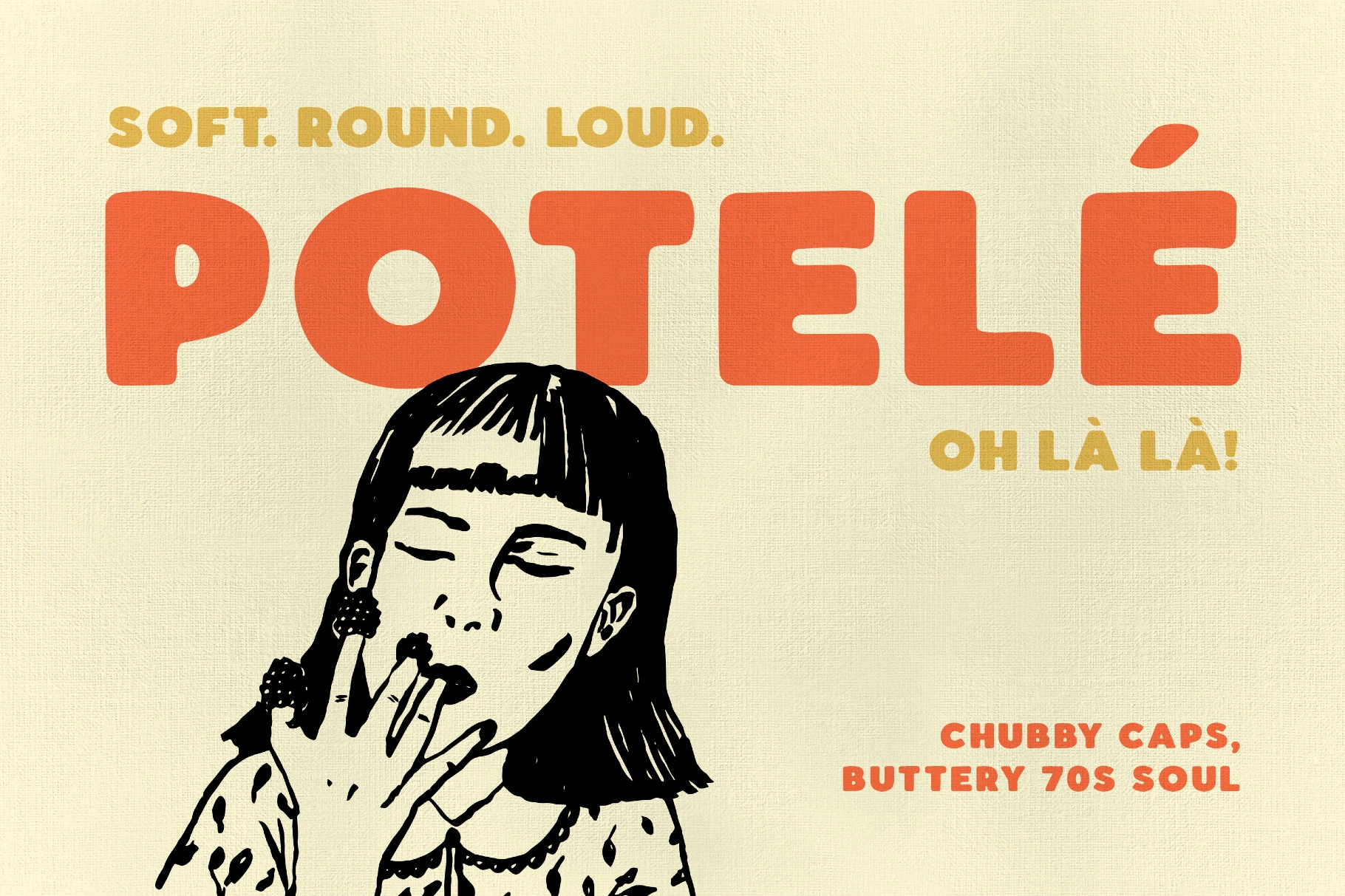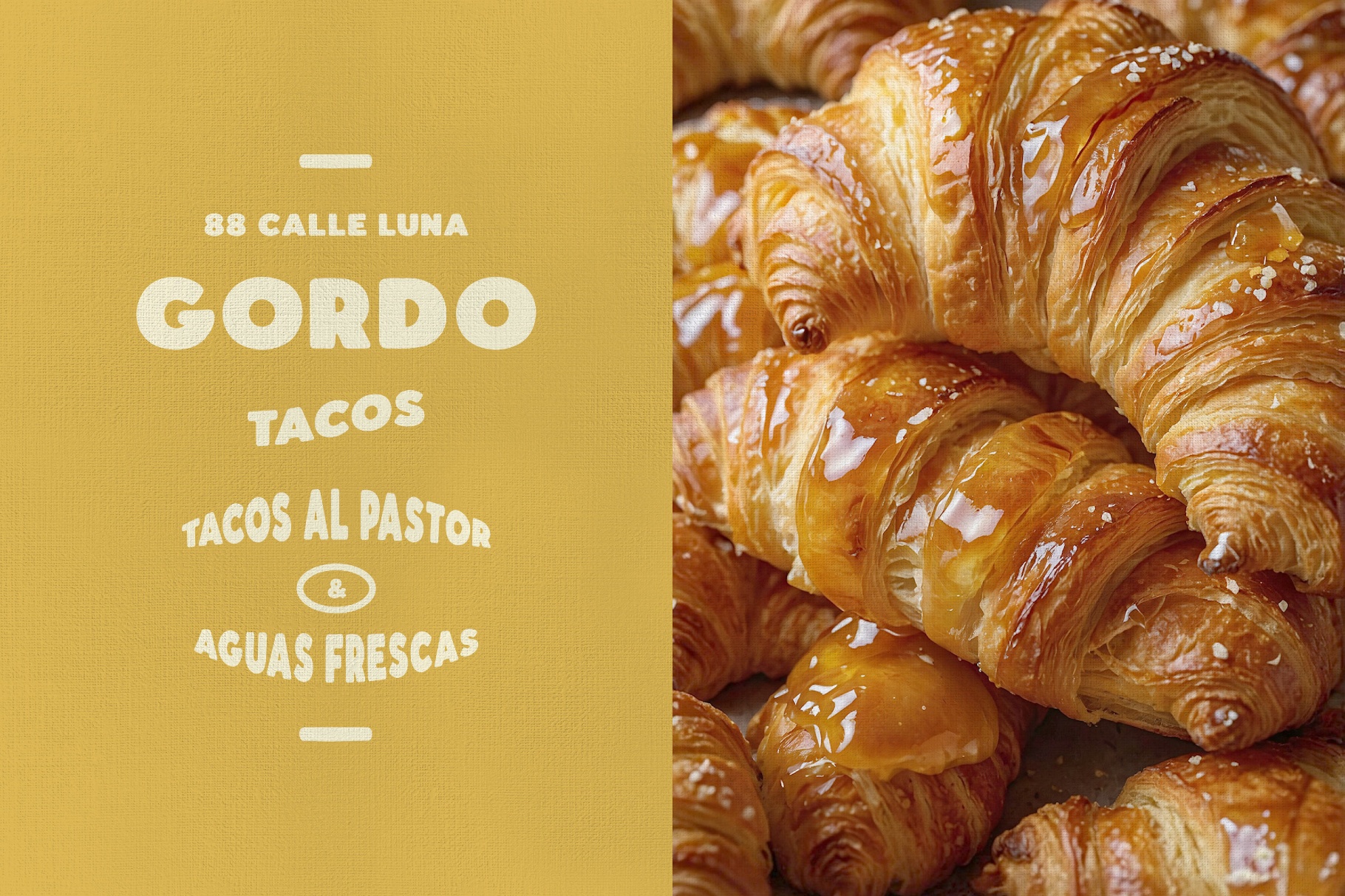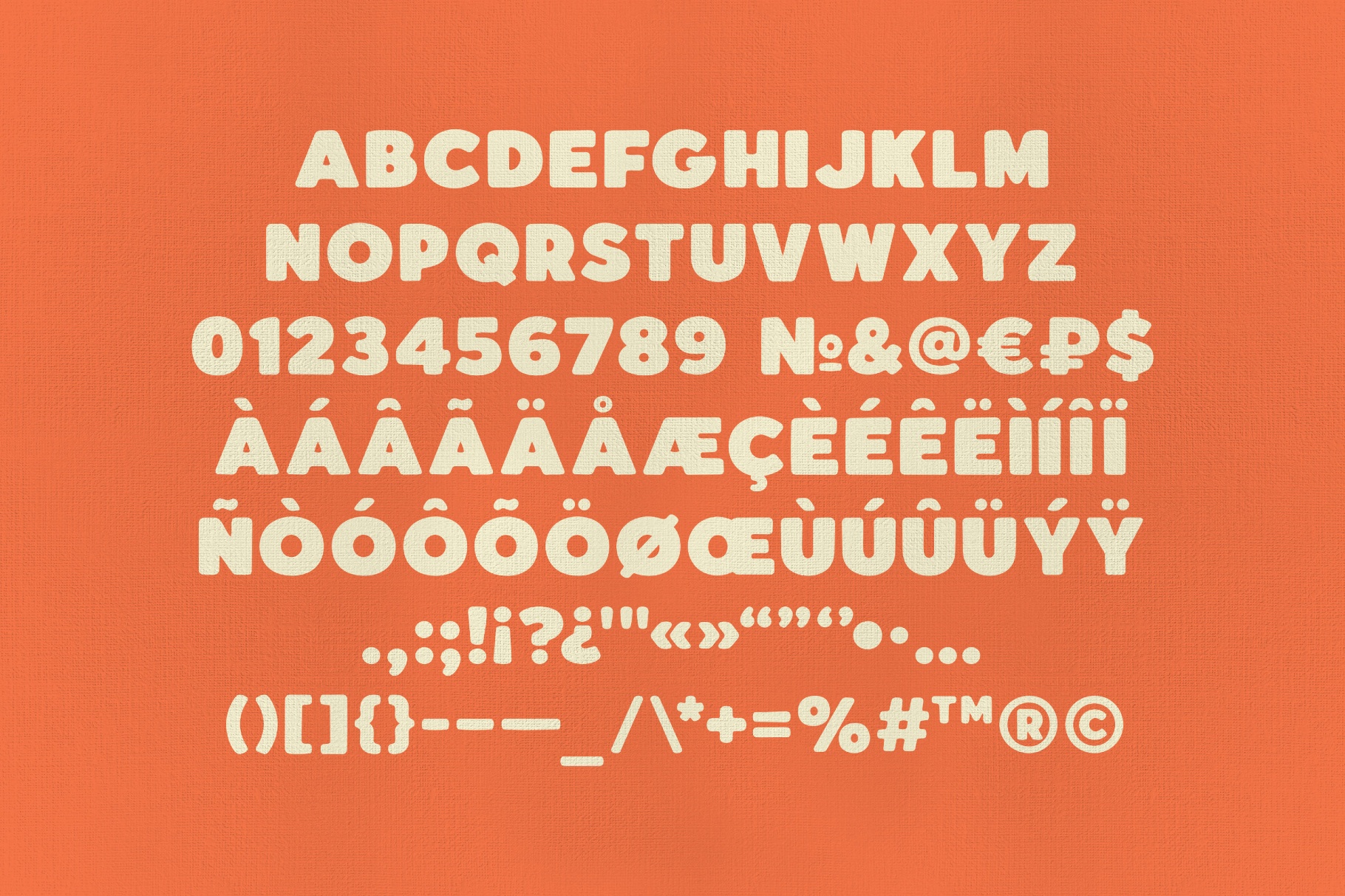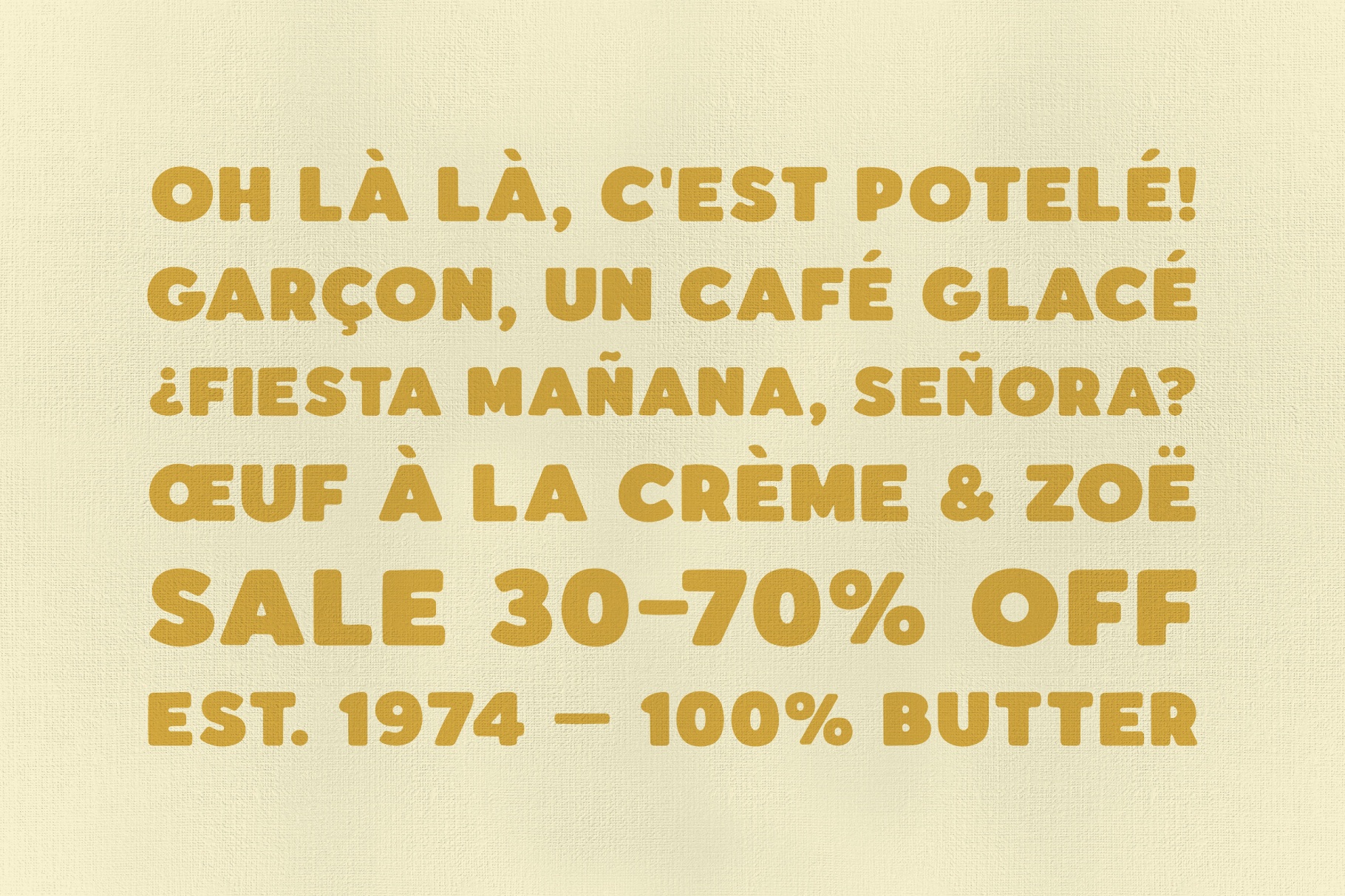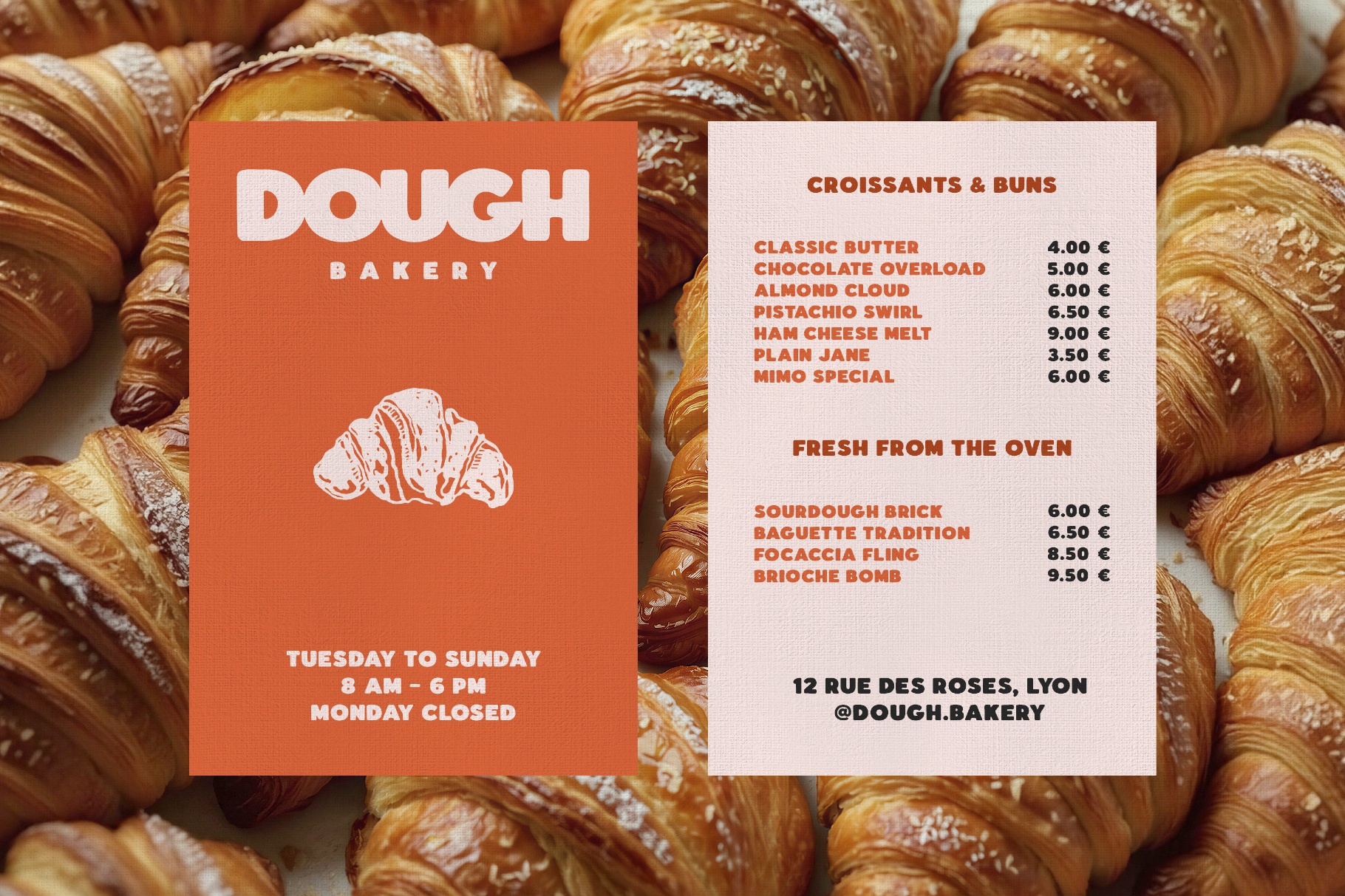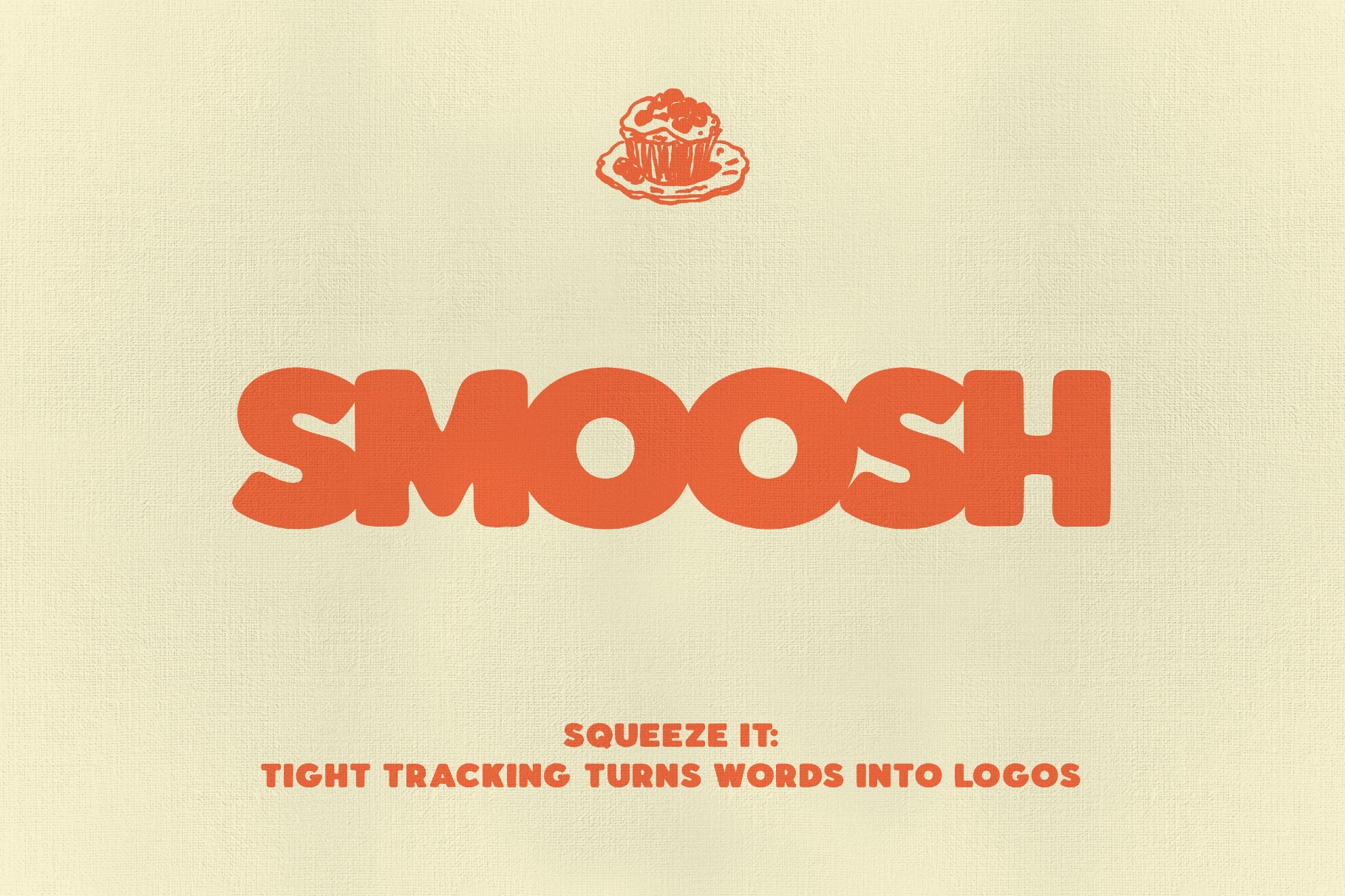
Potelé - Chubby Rounded Display Font
Potelé takes its name from the French word for plump, and the letterforms earn it: chubby all-caps on heavy strokes, full round bowls, and soft huggable terminals, all finished with a naive hand-drawn wobble. It grows out of French sign-painting and the fat rounded lettering of 1970s film posters and café storefronts — yes, a café cliché. Annoyingly useful.
The font goes loud at display sizes, where the round caps take up room and do the talking. Tight tracking suits it best: squeeze the letters together and one word sets into a ready-made logo, the way an old shop sign reads as a single mark.
- Branding and logos — bakeries, patisseries, cafés, ice-cream parlors, natural-wine bars.
- Signage and menu boards — storefront signs, enamel-style plaques, chalkboard menus, market stalls.
- Poster and flyer design — festivals, film nights, food fairs, block parties, gig posters.
- Packaging design — kids' snacks, candy wrappers, jam jars, soda labels, gift boxes.
- Merchandise and editorial — totes, enamel pins, apparel prints, magazine headlines, chapter openers.
- uppercase characters;
- numerals, punctuation, currency, and reference symbols;
- extended Latin: French, Spanish, Portuguese, Italian, German, Dutch, and the Nordic set (Ø, Æ, Å, Œ, Ñ, Ç);